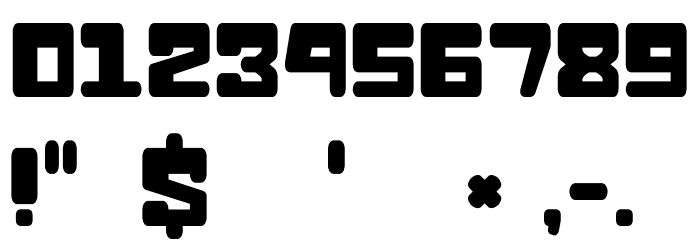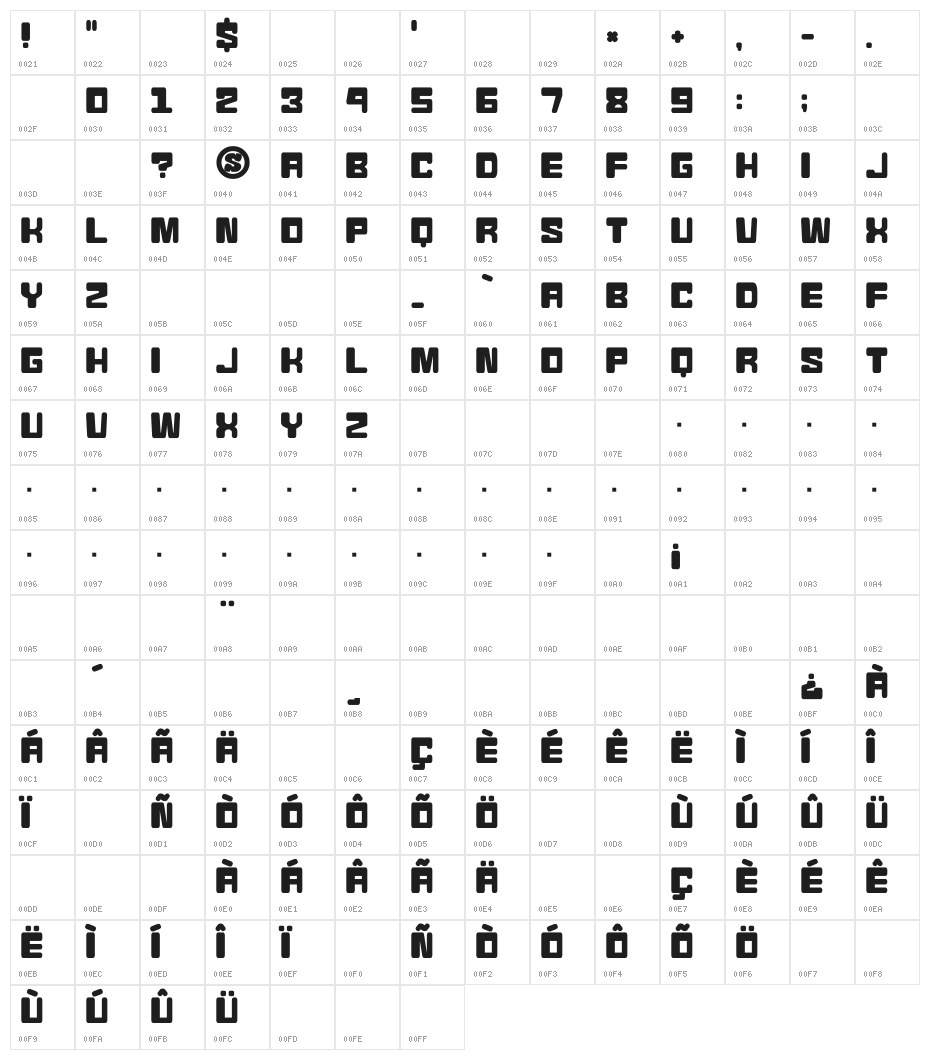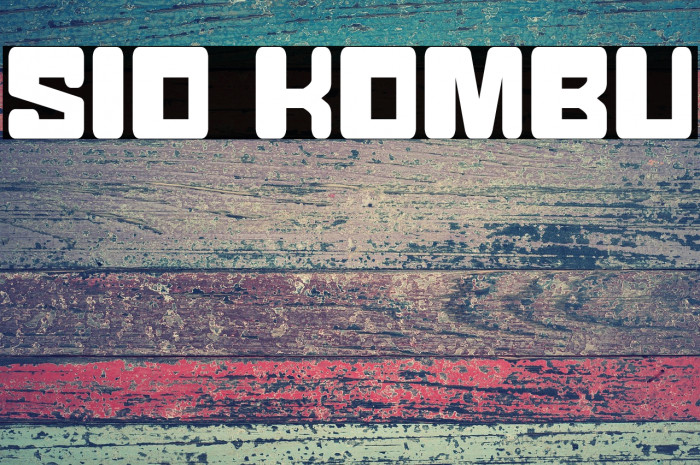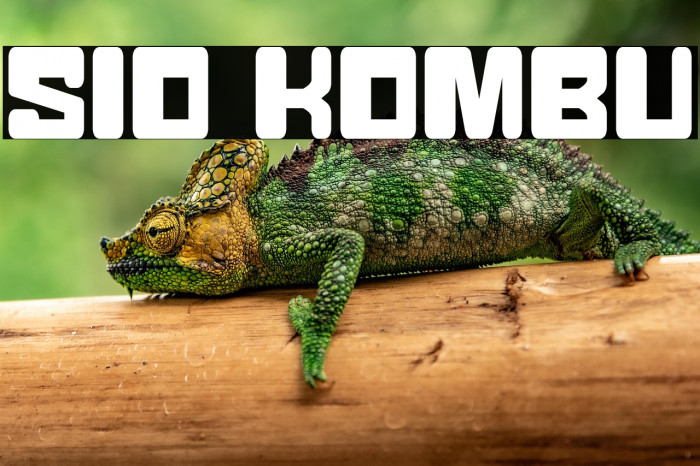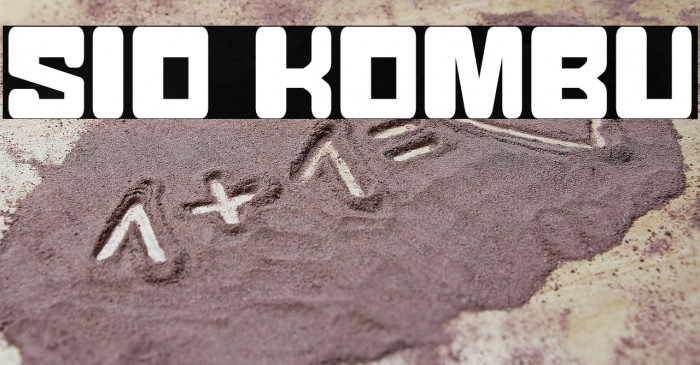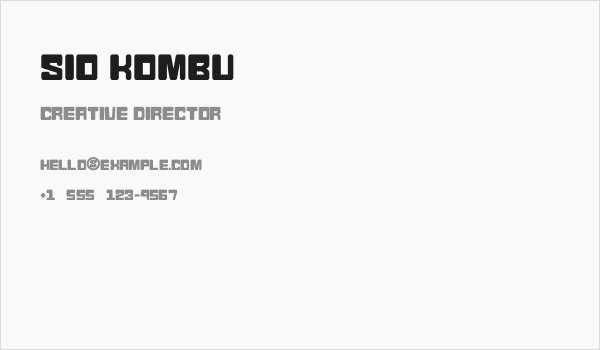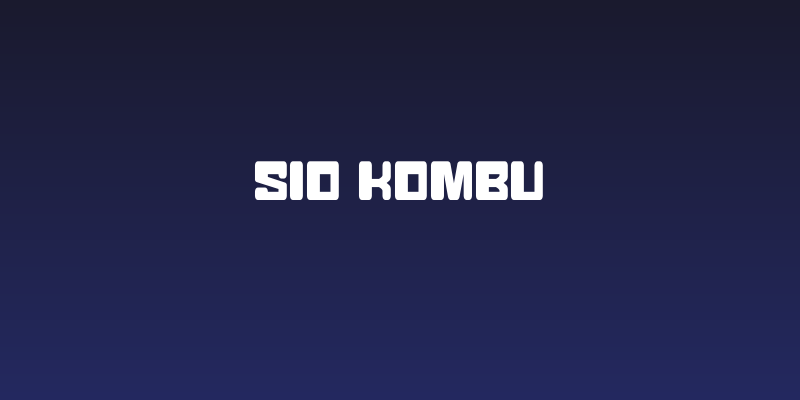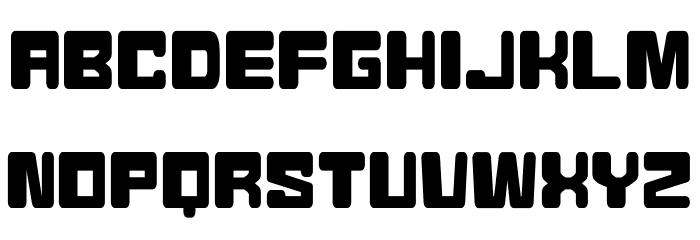
Sio Kombu Font
Sio Kombu Description
This font exhibits a bold and robust design with a modern, geometric style. The characters are uniformly thick, giving a strong and impactful appearance. The rounded edges soften the overall look, creating a balance between strength and approachability. The uppercase and lowercase letters maintain a consistent height, enhancing readability and uniformity. The numerals are equally bold, ensuring they stand out in any context. Special characters are designed with the same boldness, ensuring they integrate seamlessly with the rest of the typeface. This font is ideal for projects that require a strong visual presence.
| Proposed Projects | Ideal for branding, posters, headlines, and any design requiring a strong visual impact. |